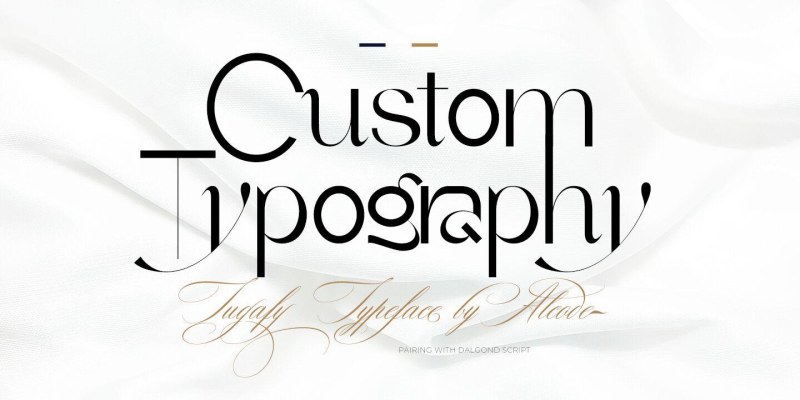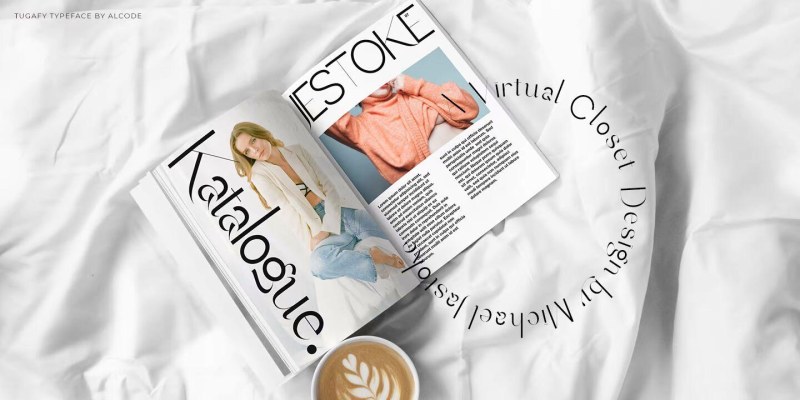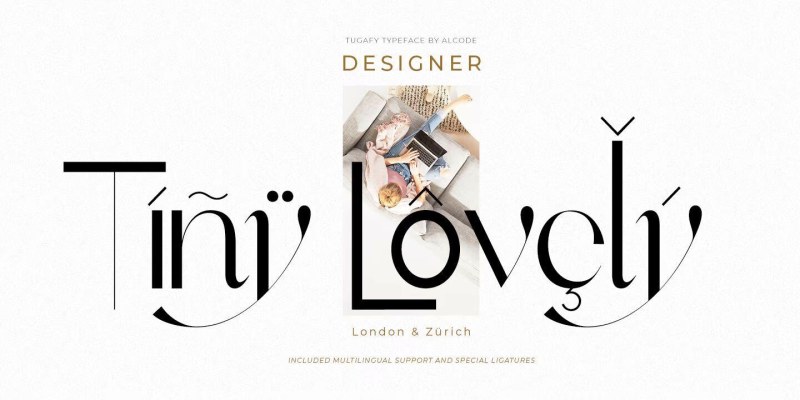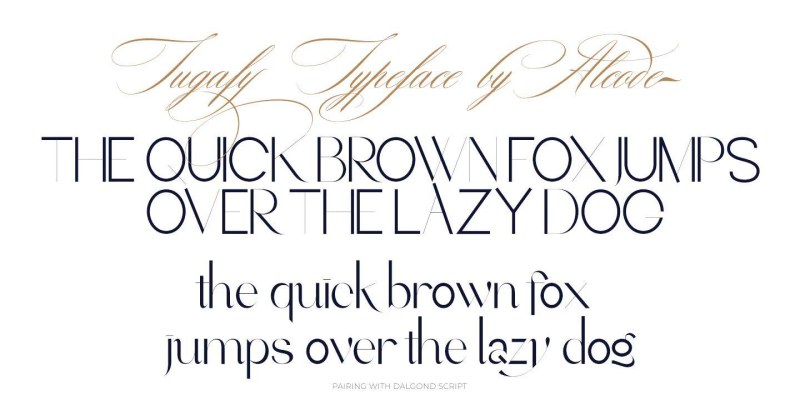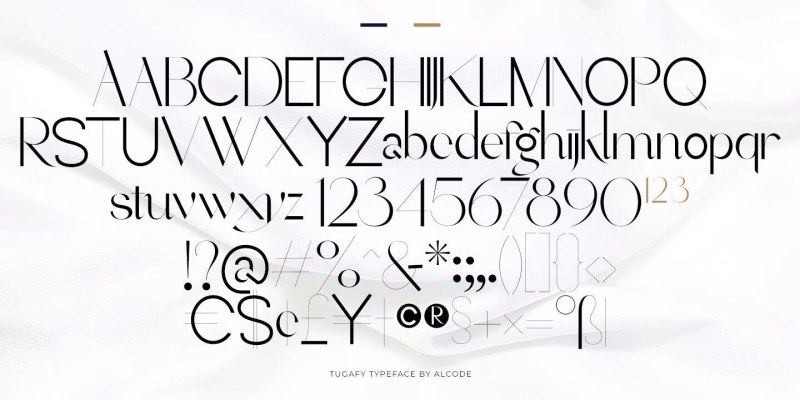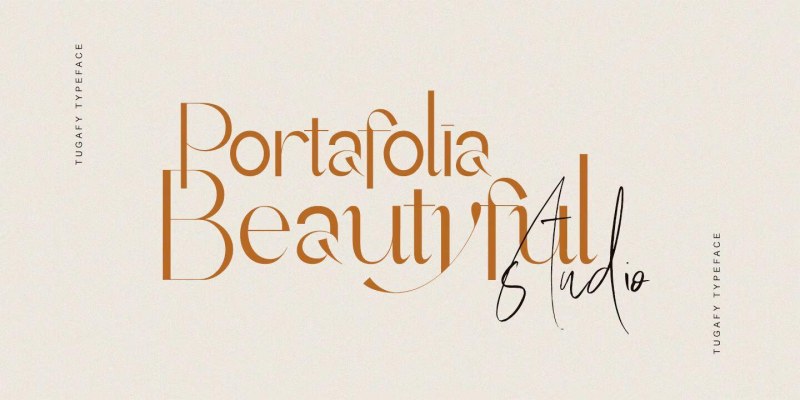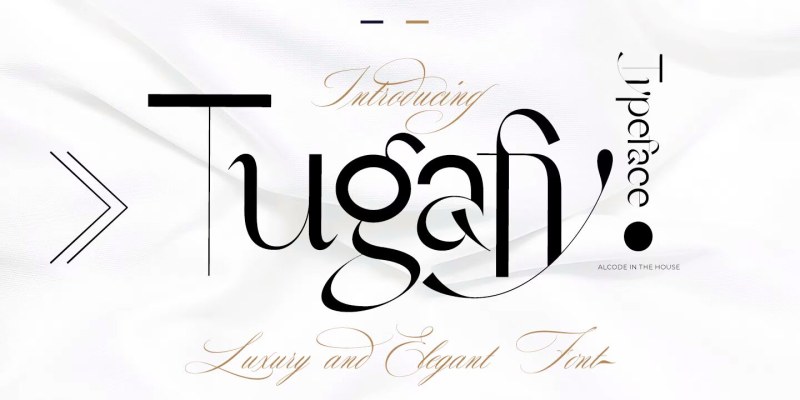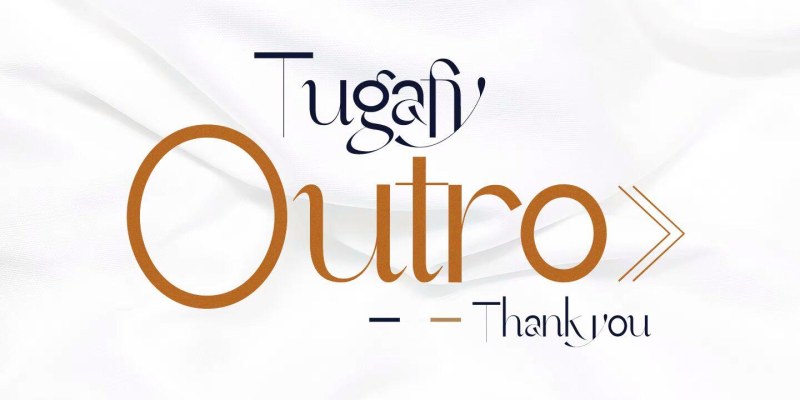
Tugafy Font
Tugafy is a Decorative display font with ligatures also complete multilingual glyphs. Tugafy come with Regular style, it will make this typeface can be used in all desig…
Tugafy is a Decorative display font with ligatures also complete multilingual glyphs. Tugafy come with Regular style, it will make this typeface can be used in all design projects and works perfectly for pairing with script typeface or handmade fonts, Headlines, Posters, Packaging, T-shirts, Postcards, Invitation, Wedding Sign, Sign Painting, Signboard, and much more. Try Tugafy, enjoy the richness of OpenType features and let her fun and elegant excitement make you happy and enhance your creativity! You can use this font very easily.
Where Tugafy Font works best
Event & seasonal design
Tugafy Font suits themed posters, holiday campaigns, festival identities and party invitations.
Game & entertainment titles
Decorative letterforms are a natural fit for game logos, movie-style titles and merch.
Packaging accents
Use Tugafy Font sparingly for product names or flavour labels that need personality.
What is Tugafy Font good for?
Tugafy Font is a Decorative Fonts typeface tagged Decorative, Decorative Fonts, Display, Elegant. It works well for headlines, logos, posters, social media graphics and branding projects that need a distinctive decorative fonts look.